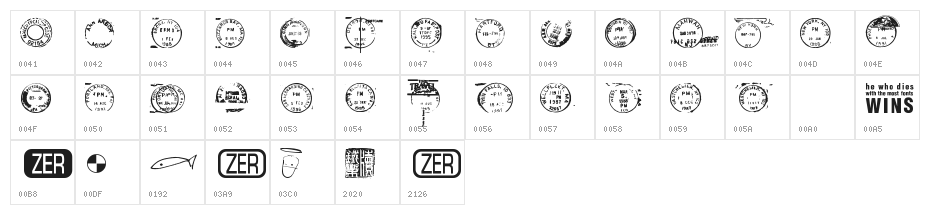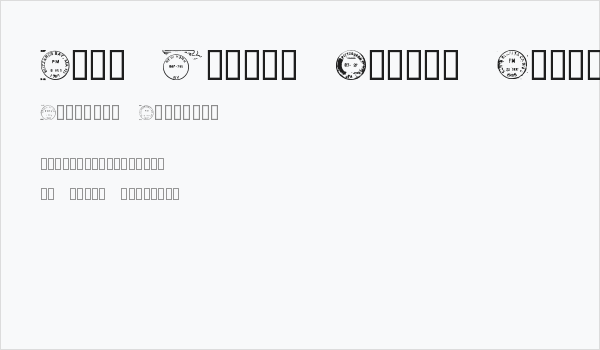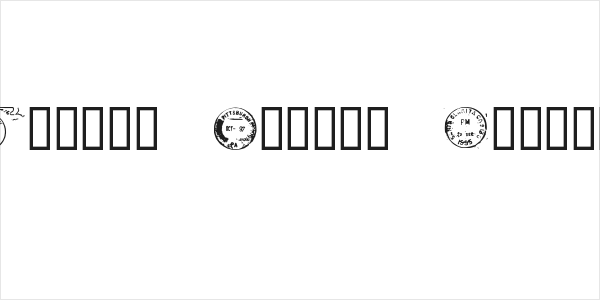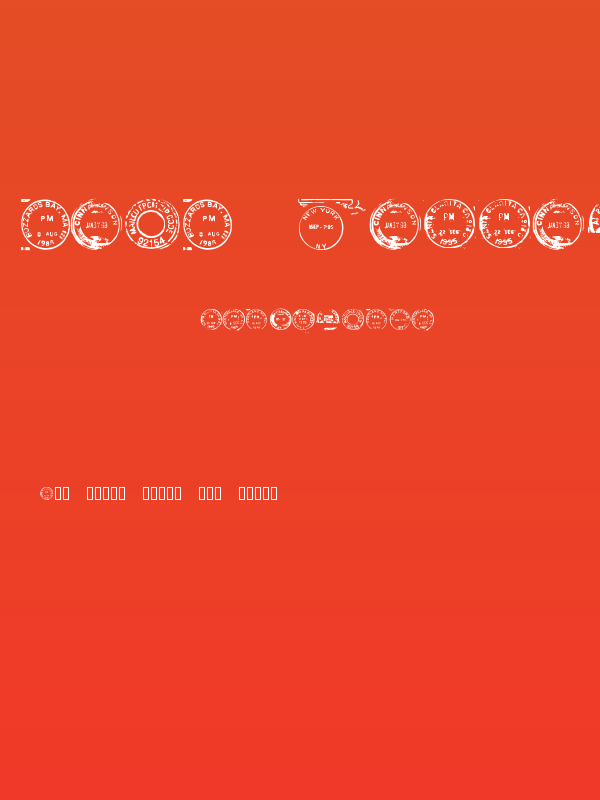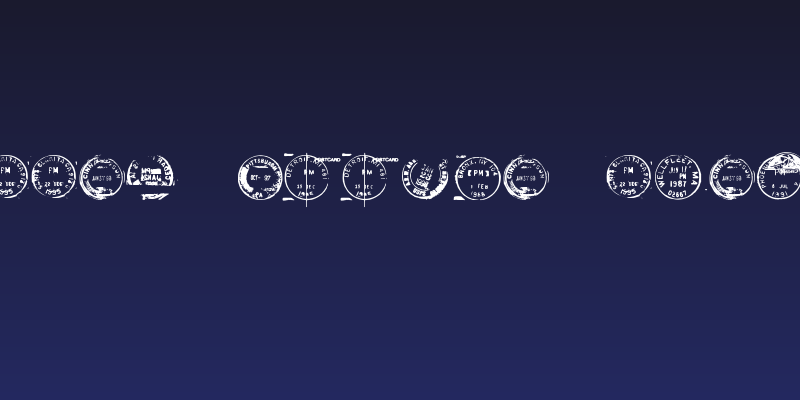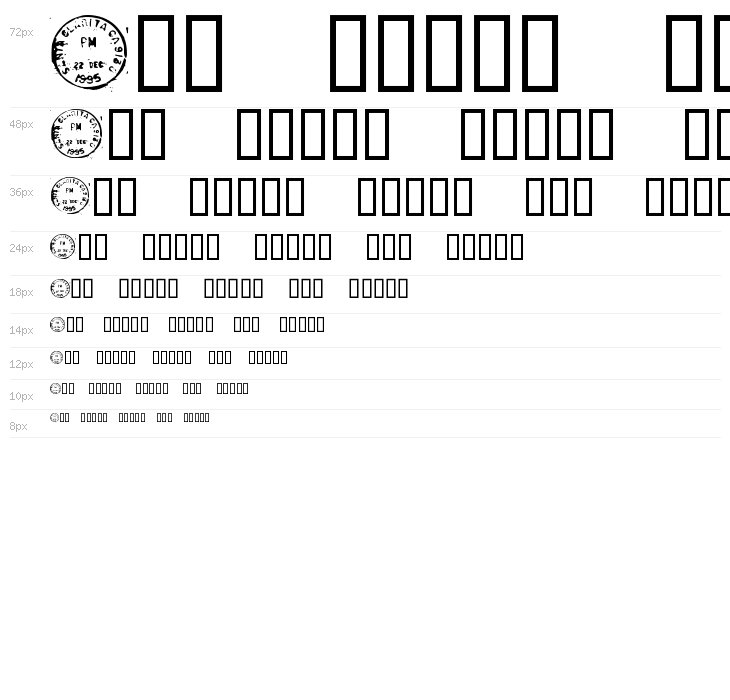
Dead Letter Office Twenty Nine Font
Dead Letter Office Twenty Nine Description
This design features a series of circular postmarks, each with unique text and dates, reminiscent of vintage postal stamps. The stamps display a variety of locations and dates, each enclosed within a circular border. The text within the circles is slightly distressed, adding to the aged and authentic appearance. The overall aesthetic is nostalgic, evoking a sense of historical correspondence and travel. The design is monochromatic, using black ink on a white background, which enhances the vintage feel. This style is ideal for projects that aim to capture a sense of history or nostalgia.
| Use Case | Decorative elements, Themed designs |
| Proposed Projects | Ideal for vintage-themed designs, historical documents, scrapbooking, or as decorative elements in graphic design projects. |